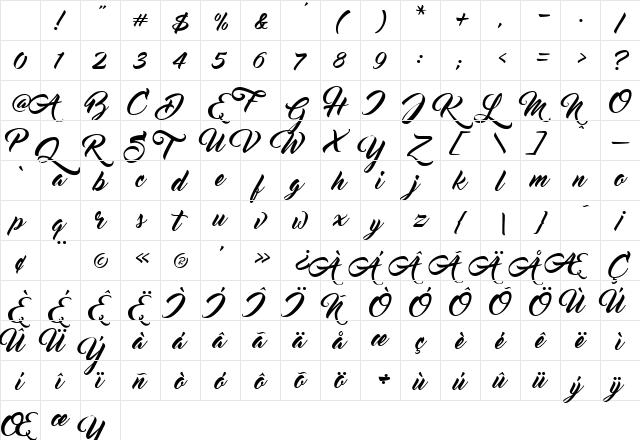
Complete Master Of Break Regular glyph index. Displaying only characters natively supported by Master Of Break Regular font.
Master Of Break is a composed and adaptable typeface that performs quietly and consistently across a wide range of design contexts.